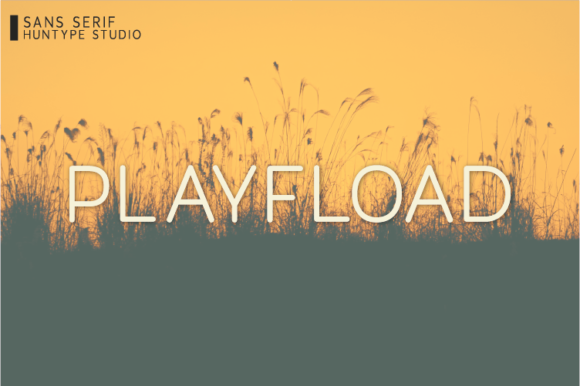
Dive into the world of typography with Playfload Font, a masterpiece crafted by Huntype, where simplicity meets elegance. This minimal and neat sans serif font is not just a mere addition to your font library; it's an investment that will transform your creative endeavors.
With its clean lines and understated charm, Playfload Font exudes a timeless appeal that transcends trends. Its versatility allows it to effortlessly adapt to any project, whether you're designing a captivating T-shirt graphic, crafting a heartfelt invitation, or creating a visually stunning website.
Playfload Font's strength lies in its ability to elevate your designs with a touch of sophistication. Its carefully balanced letterforms and harmonious proportions create a visual symphony that commands attention without overpowering your content.
Imagine your T-shirt designs coming to life with Playfload Font, where every word, every phrase, becomes a statement of style. The font's clean and crisp structure ensures that your message shines through, leaving an indelible mark on your audience.
But Playfload Font's brilliance extends far beyond T-shirts. Its versatility makes it an ideal choice for invitations, posters, logos, and even web design. Its understated elegance adds a touch of class to any project, transforming ordinary designs into captivating masterpieces.
With Playfload Font, you're not just downloading a font; you're embarking on a creative journey where every design becomes a reflection of your unique style. Its user-friendly nature makes it accessible to designers of all levels, empowering you to create designs that resonate with your audience.